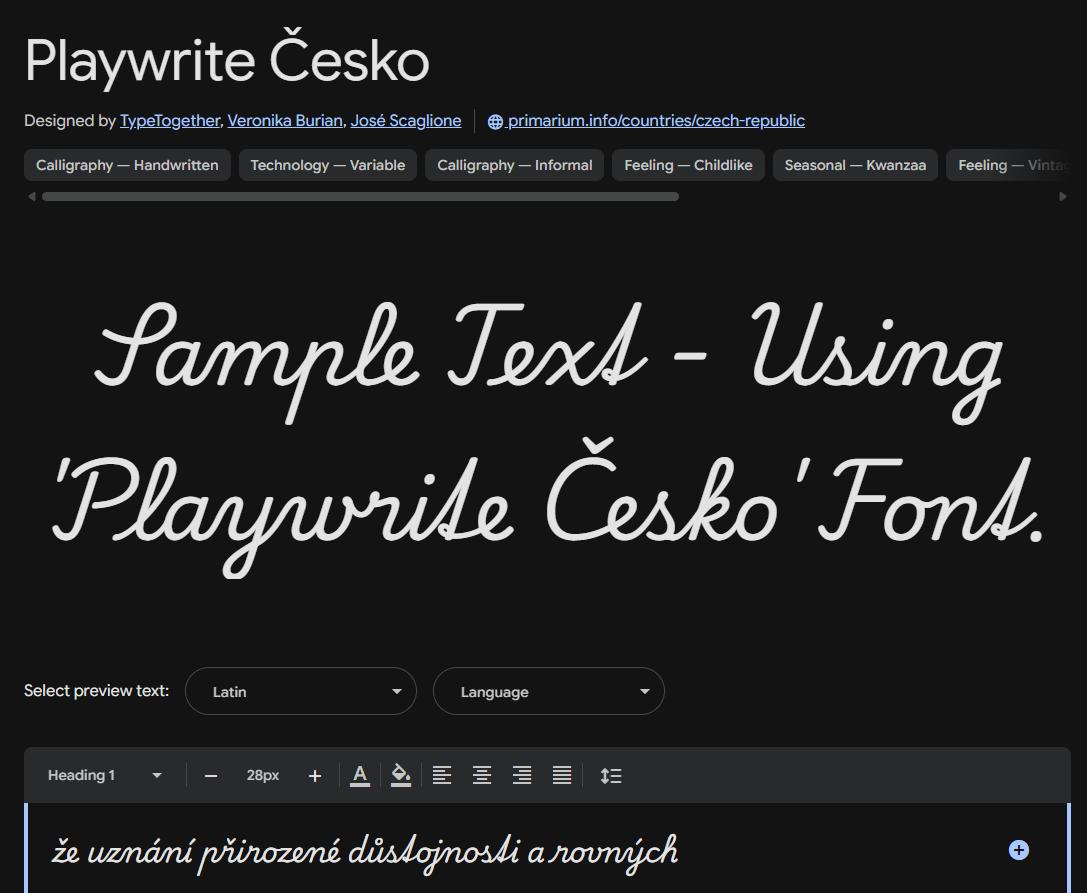
Playwrite Česko, meticulously engineered by TypeTogether's founders Veronika Burian and José Scaglione, represents a sophisticated synthesis of pedagogical handwriting standards and modern variable font technology. This typeface family operates on a single axis of weight, allowing for fluid interpolation that preserves the rhythmic ductus and regional cursive nuances specific to the Czech Republic's educational models. By integrating the organic flow of human penmanship with a high-performance digital framework, Playwrite Česko utilizes the variable axis to optimize stroke contrast and legibility across diverse screen resolutions, ensuring that the complex ligatures and terminal endings remain semantically coherent. This intersection of localized orthographic tradition and advanced typographic engineering provides a versatile tool for digital literacy, where the kinetic energy of the script is captured within a robust, variable architecture designed for both aesthetic grace and technical precision.
The Playwrite Česko font family represents a sophisticated fusion of Variable technology and Handwritten calligraphy, meticulously engineered to capture the nuances of primary school script while offering the flexibility of modern digital design. Characterized by its Informal calligraphy and a distinctly Childlike innocence, the typeface provides a Happy and Playful typographic voice that remains Active across various interactive mediums. Despite its whimsical roots, the font possesses a Rugged architectural integrity and a subtle Vintage aesthetic, making it surprisingly versatile for diverse applications ranging from educational modules to Seasonal cultural graphics such as those for Kwanzaa. By utilizing fluid interpolation between weights, Playwrite Česko ensures that every glyph maintains an organic, human touch, offering a semantically rich experience that balances technical typeface industry precision with a warm, approachable personality.
While Playwrite Česko represents a sophisticated digital evolution of the Czech primary school handwriting model, its continuous cursive construction and monolinear stroke architecture make it fundamentally unsuitable for high-stakes corporate legalities, medical pharmaceutical labeling, or dense financial reporting where objective neutrality is mandatory. The typeface, engineered by Veronika Burian and José Scaglione with a variable weight axis to simulate human motor skill progression, possesses inherent stylistic idiosyncrasies and entry-stroke ligatures that can impede rapid information scanning and optical character recognition in automated data processing environments. Consequently, in industrial sectors requiring maximum semantic clarity and authoritative rigidity, the juvenile associations of its educational script pedigree fail to provide the necessary typographic hierarchy, making it an ineffective choice for complex UI/UX microcopy or any professional context where the aesthetic of instructional penmanship would undermine the gravity of institutional communication.
Playwrite Česko is specifically engineered to include the full range of essential Czech characters, ensuring accurate representation of local orthography. The font's Unicode coverage meticulously incorporates the háček and čárka glyphs, maintaining optimal stroke contrast across the entire ISO-8859-2 character set.
The typeface functions exceptionally well in large-scale applications due to its fluid, continuous strokes and rhythmic design. At higher point sizes, the font's high-fidelity bezier curves prevent interpolation artifacts, preserving the organic fluid-dynamic aesthetic of modern script typography.
It pairs harmoniously with geometric sans-serifs because its organic script forms provide a humanistic contrast to rigid, mathematical letterforms. By balancing the font's varying x-height with the low-contrast stems of a sans-serif, designers can achieve a sophisticated typographic hierarchy based on visual weight distribution.
While primarily a display script, its open counters and generous letter spacing allow for sufficient legibility in short-form editorial paragraphs. Technical analysis of its glyph construction reveals that the consistent slant angle reduces cognitive load, though its script nature typically limits its use to decorative blocks rather than long-form prose.
Playwrite Česko offers a unique, approachable identity that works effectively for lifestyle brands seeking an authentic, hand-crafted aesthetic. The integration of contextual alternates ensures that branding elements remain visually cohesive, utilizing OpenType features to simulate realistic handwriting transitions between character pairs.
This font is an ideal choice for educational content because it closely mimics the standard cursive movements taught in Czech primary school systems. Research into legibility for young readers suggests that its simplified grapheme construction facilitates faster recognition of complex letter clusters during early literacy development.
On high-resolution screens, the connections between characters appear seamless and natural, mimicking the physical flow of ink on paper. The font utilizes advanced ligatures and precise anchor point placement to maintain structural integrity, ensuring that sub-pixel rendering does not disrupt the continuous stroke path.
Its elegant and personal touch makes it a popular choice for wedding invitations and stationery that require a modern, intimate aesthetic. The typeface's distinct descender lengths provide a graceful vertical rhythm, which complements the high-white-space layouts typical of formal letterpress printing techniques.
The Playwrite series is designed as a versatile family, often released as a variable font to accommodate a broad range of design requirements. Implementing a variable font axis enables precise control over the font-weight CSS property, allowing for custom interpolation between thin and bold extremes without loss of glyph clarity.
In narrow layouts, the font maintains its readability provided that sufficient tracking and leading are applied to prevent the script from feeling congested. The horizontal metrics of the font are optimized for flow, yet its kerned pairs may require manual adjustment in tight gutters to avoid overlapping ascenders and descenders.